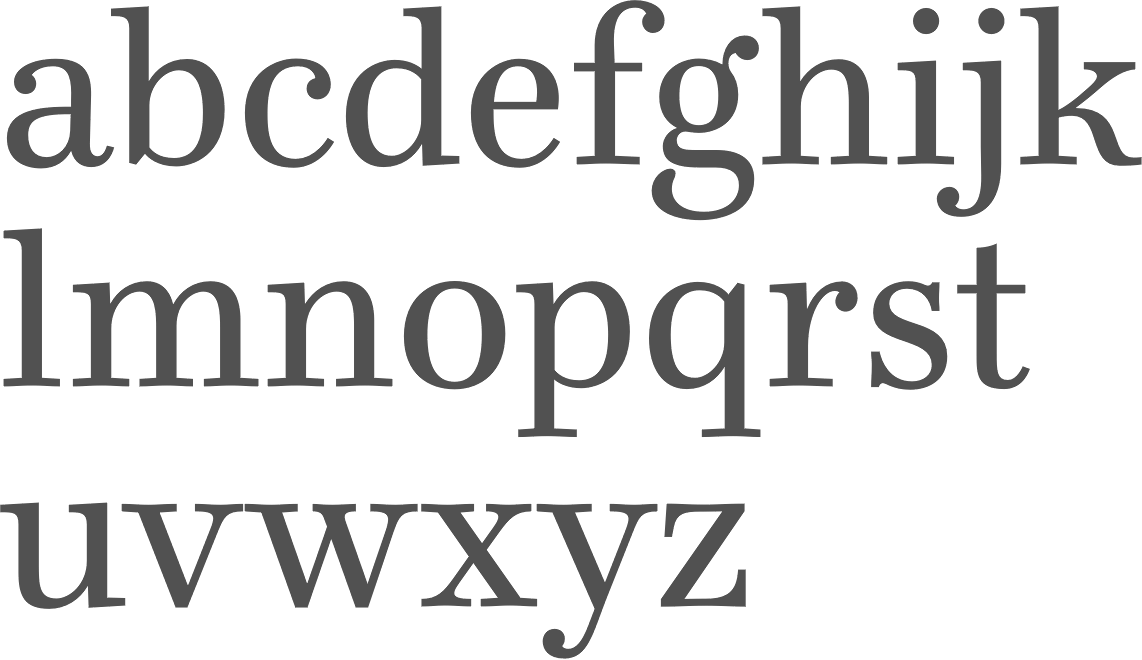
+23 High Contrast Fonts Ideas
+23 High Contrast Fonts Ideas. Click to find the best 36 free fonts in the serif high contrast style. Click the contrast themes page on the right side.
Giftcage is a condensed serif font with high contrast between the strokes. High contrast fonts 105 free fonts related styles cool calligraphy fancy script handwriting sans serif serif bold modern retro vintage logo wedding art deco elegant decorative. Stock up on design essentials up to 50% off.
Neplus Ultra High Contrast Pack Curated By Positype Don’t Be Afraid Of The Dark!